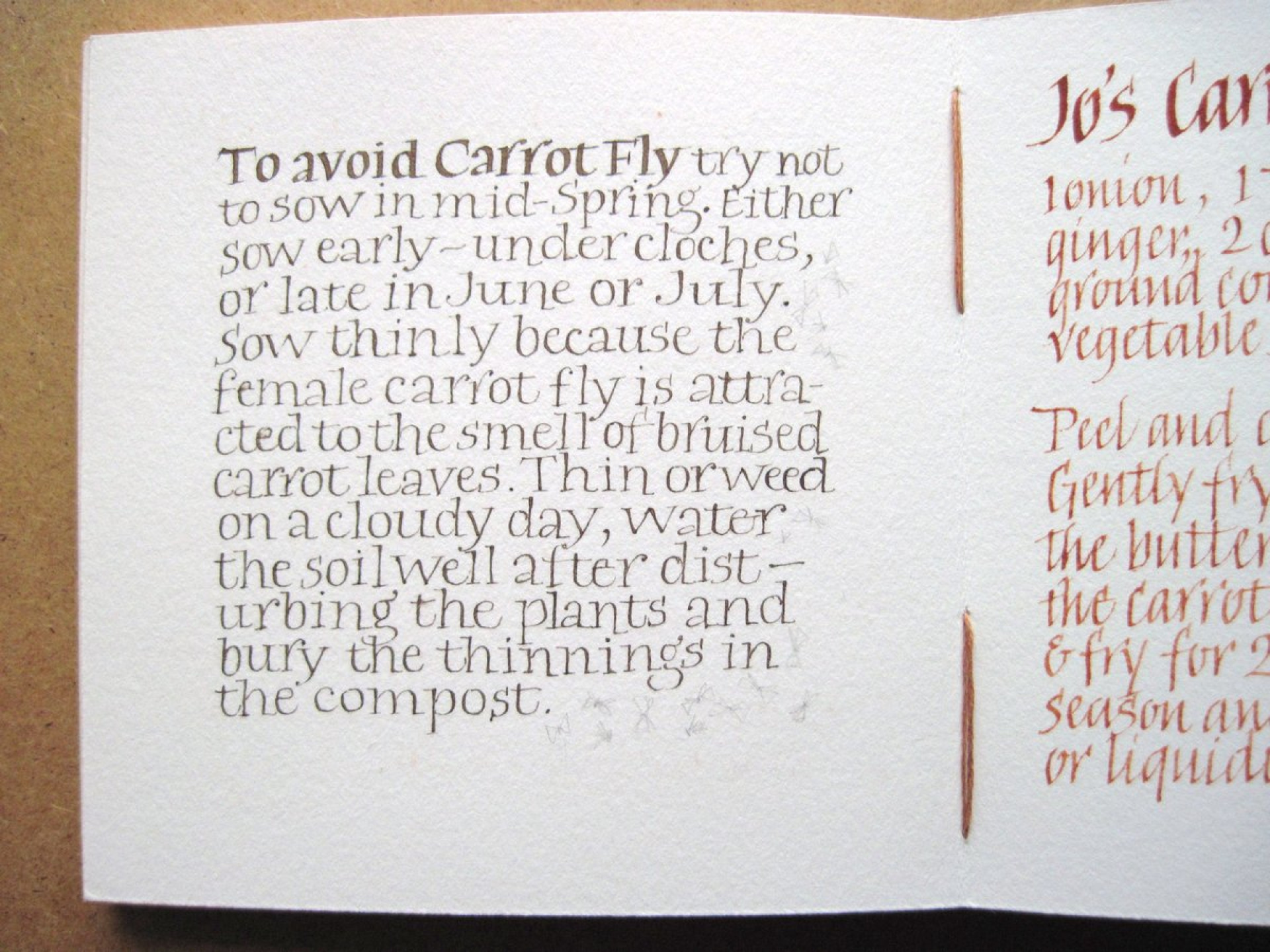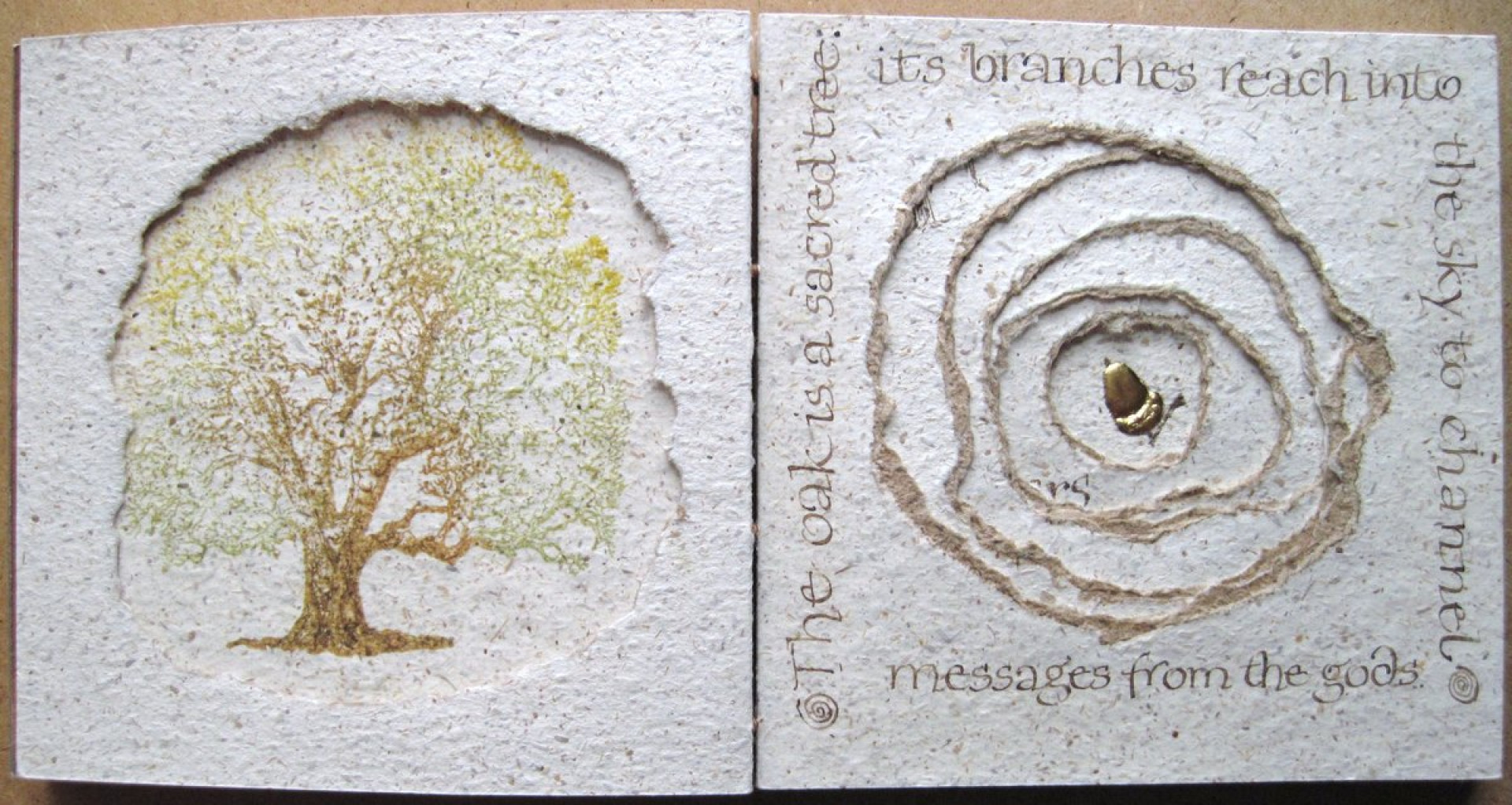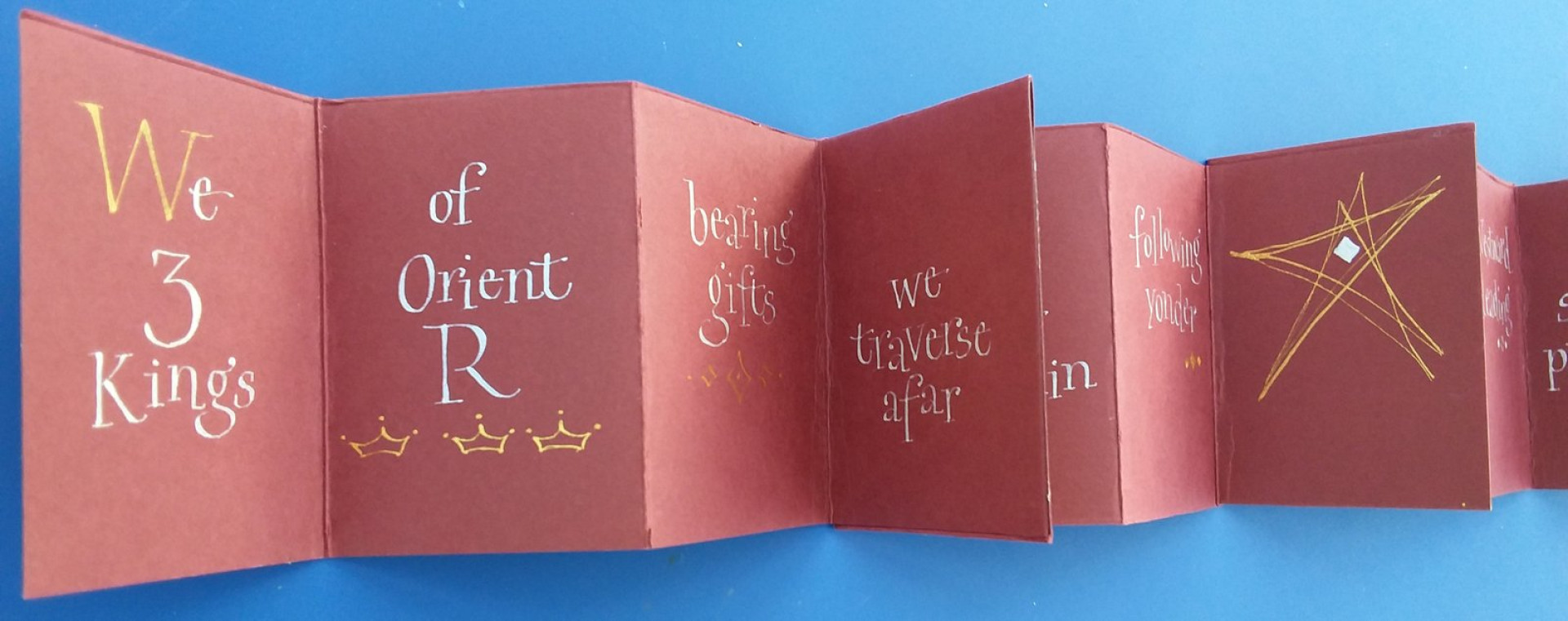
'Mouse Roman' Online Workshop with Josie Brown
It’s fun, it’s lively and it’s contemporary! This workshop is an introduction to a script which is easy to learn for beginners and a light-hearted contrast to other hands for those with some experience. It can either be carried out simply in monoline form or penmanship skills can be developed using press and release techniques. This script is particularly useful for informal and spontaneous work like greetings cards, journals or little books and anyone can play with the letterforms, enjoying their happy-go-lucky stance on the page. There may be time to show you a little ‘foldy’ thing to write on too?